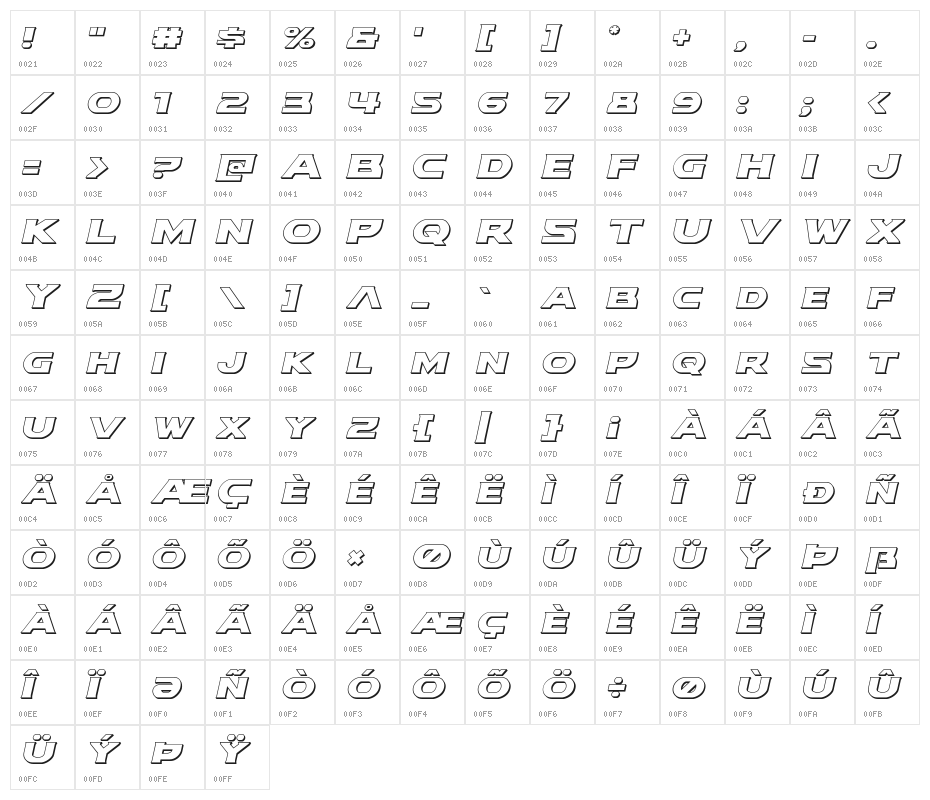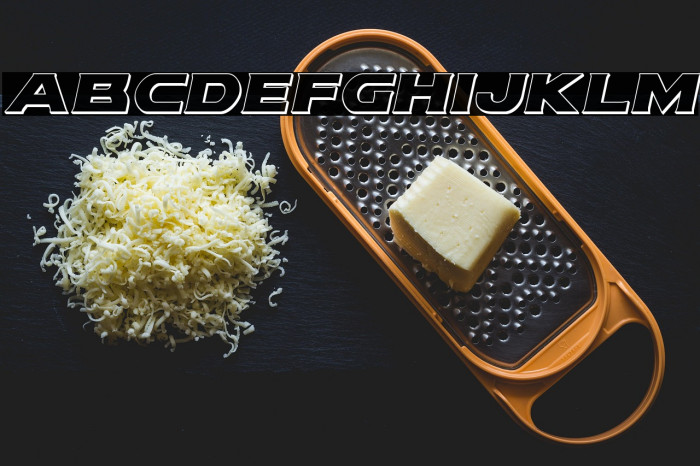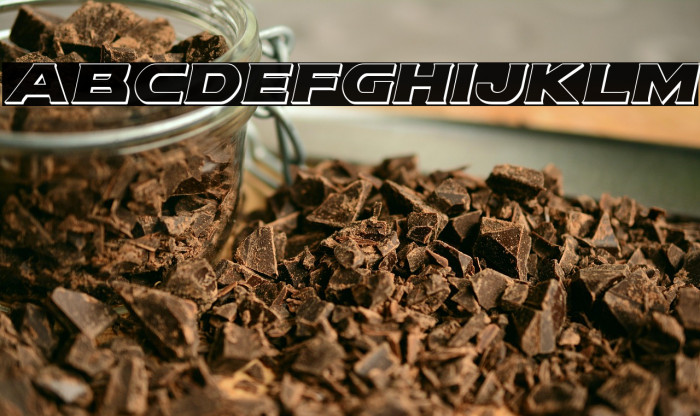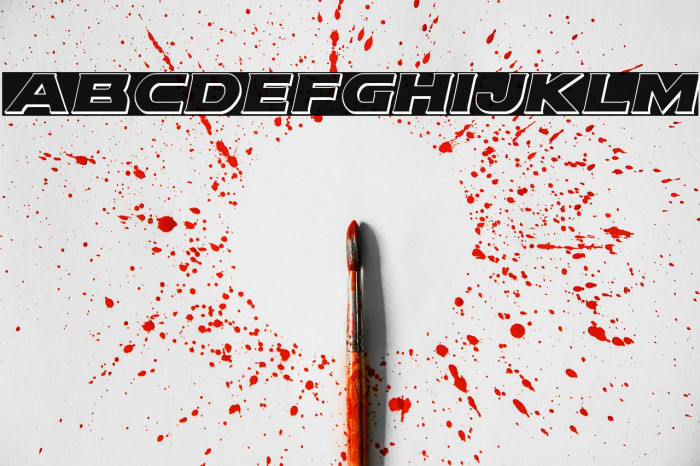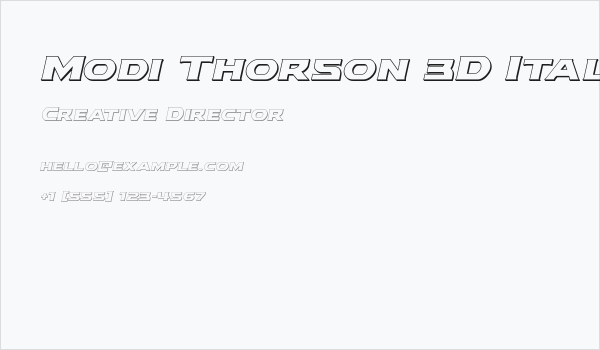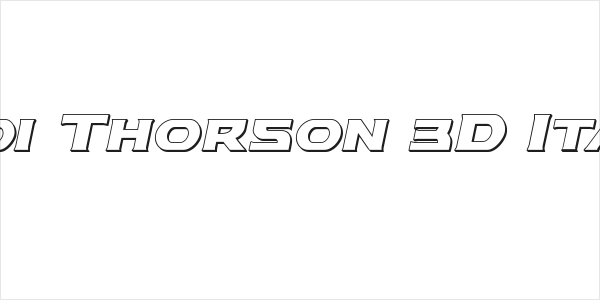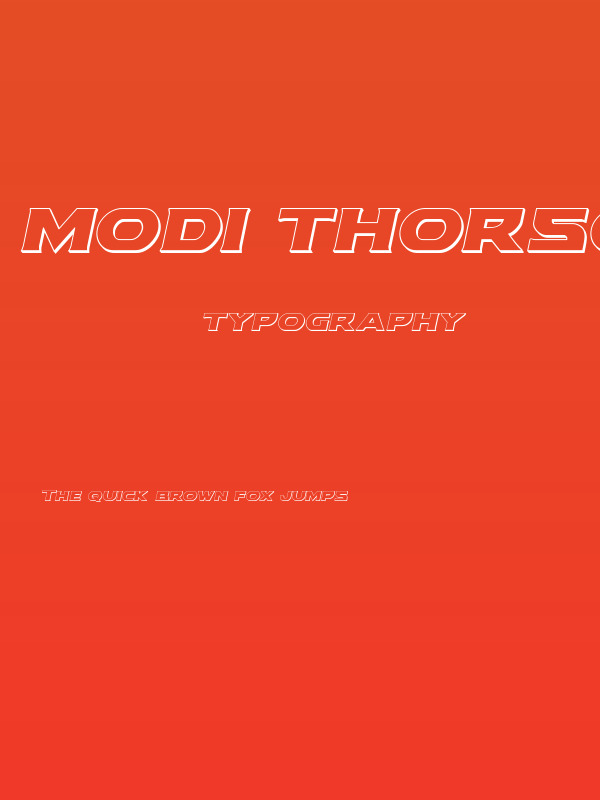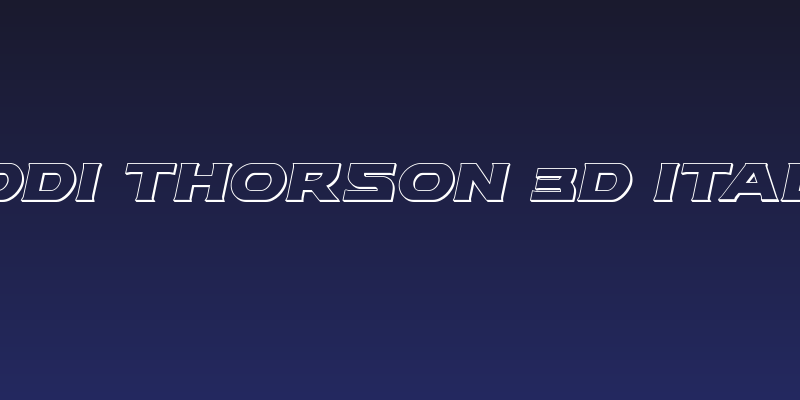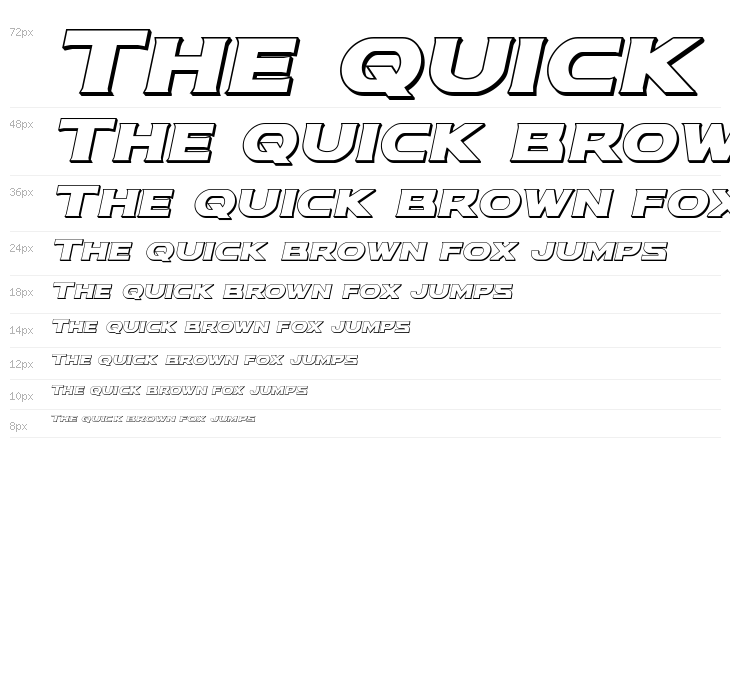
Modi Thorson 3D Italic Font
Modi Thorson 3D Italic Description
This font features a bold, three-dimensional effect with an italic slant, giving it a dynamic and futuristic appearance. The characters are outlined, creating a sense of depth and movement. The uppercase letters are prominent and angular, while the numerals and special characters maintain the same bold style. The overall design is striking and modern, making it suitable for attention-grabbing headlines or logos. The italicized form adds a sense of speed and motion, enhancing its visual impact.
| Proposed Projects | Ideal for futuristic branding, sports team logos, video game titles, and sci-fi themed posters. |